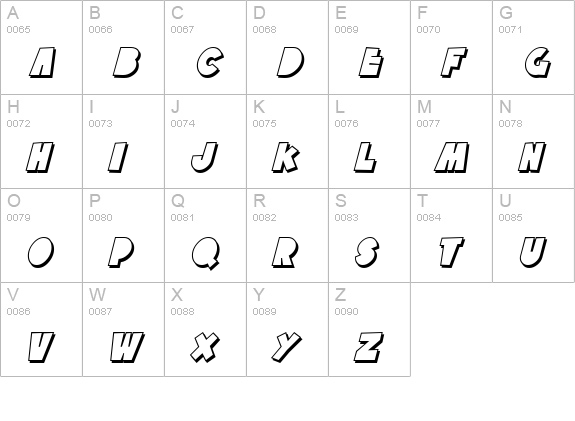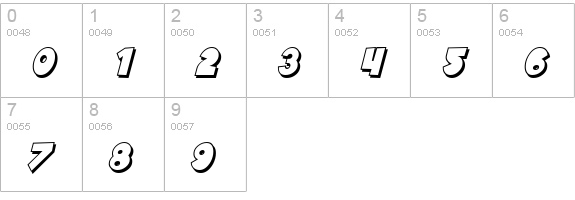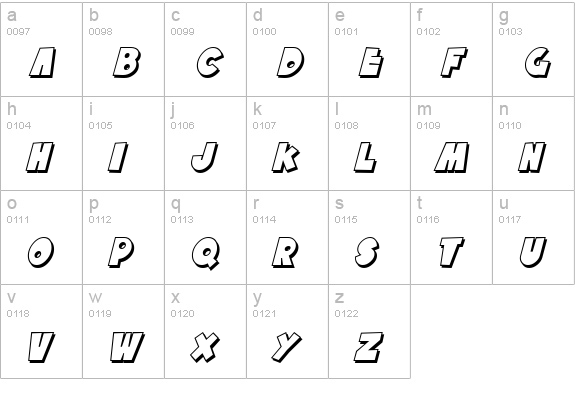
SF Tattle Tales Shadow Italic Font Details
SF Tattle Tales Shadow Italic is a distinctive, italic variant in the SF typeface family \xE2\x80\x94 well suited to design and typography projects.
Introducing SF Tattle Tales Shadow Italic font, a stunning display typeface that effortlessly combines elegance and edginess. This font is perfect for adding a touch of sophistication and mystery to your designs. With its unique shadowed italic style, SF Tattle Tales Shadow Italic font exudes a sense of depth and intrigue, making it ideal for eye-catching headlines, logos, and branding projects. Whether you're designing for print or digital platforms, this font will captivate your audience and leave a lasting impression. What's even better is that SF Tattle Tales Shadow Italic font is available for free download at FontsMarket.com. Yes, you read that right - this incredible font can be yours without spending a dime! Take advantage of this opportunity to enhance your creative projects and elevate your designs with this exceptional typeface. Designed with precision and attention to detail, SF Tattle Tales Shadow Italic font offers a wide range of uppercase and lowercase letters, numerals, punctuation marks, and special characters. Its versatility allows you to explore endless possibilities and experiment with different compositions, giving your text a distinctive and stylish appeal. Whether you're working on a poster, website, or any other design project, SF Tattle Tales Shadow Italic font will undoubtedly elevate your work to new heights. Its seamless compatibility with various design software ensures a smooth and hassle-free experience, allowing you to focus on unleashing your creativity. So, why wait? Download SF Tattle Tales Shadow Italic font for free at FontsMarket.com and unlock a world of design possibilities. Transform your projects into works of art, leaving a lasting impression on your audience. Embrace the elegance and allure of this incredible font and let your imagination soar. The possibilities are limitless when you have SF Tattle Tales Shadow Italic font in your design arsenal.